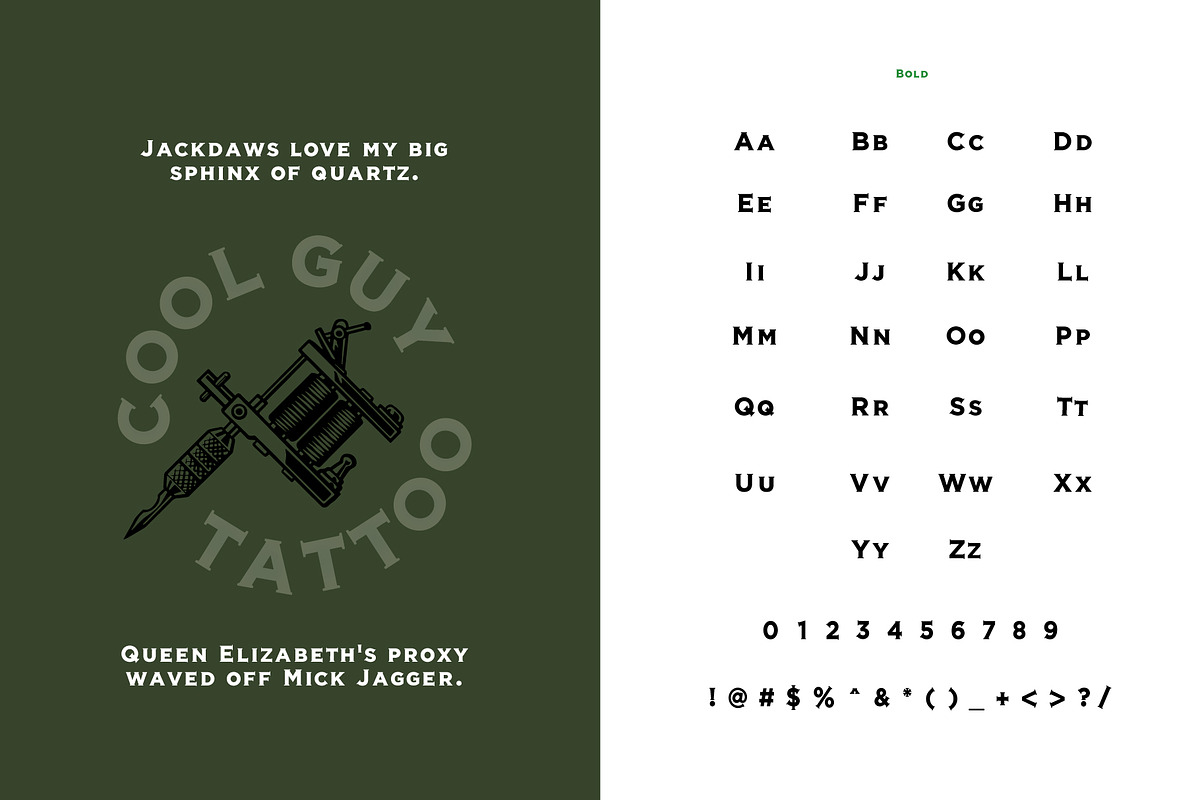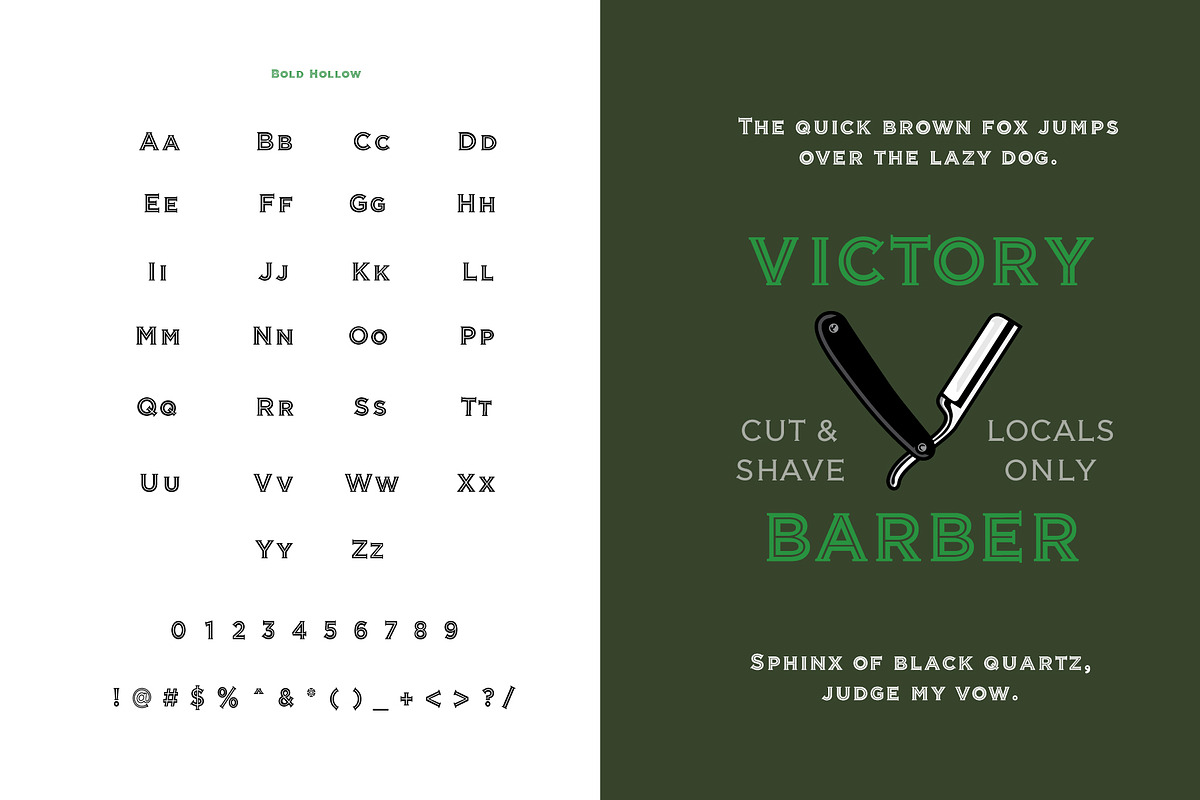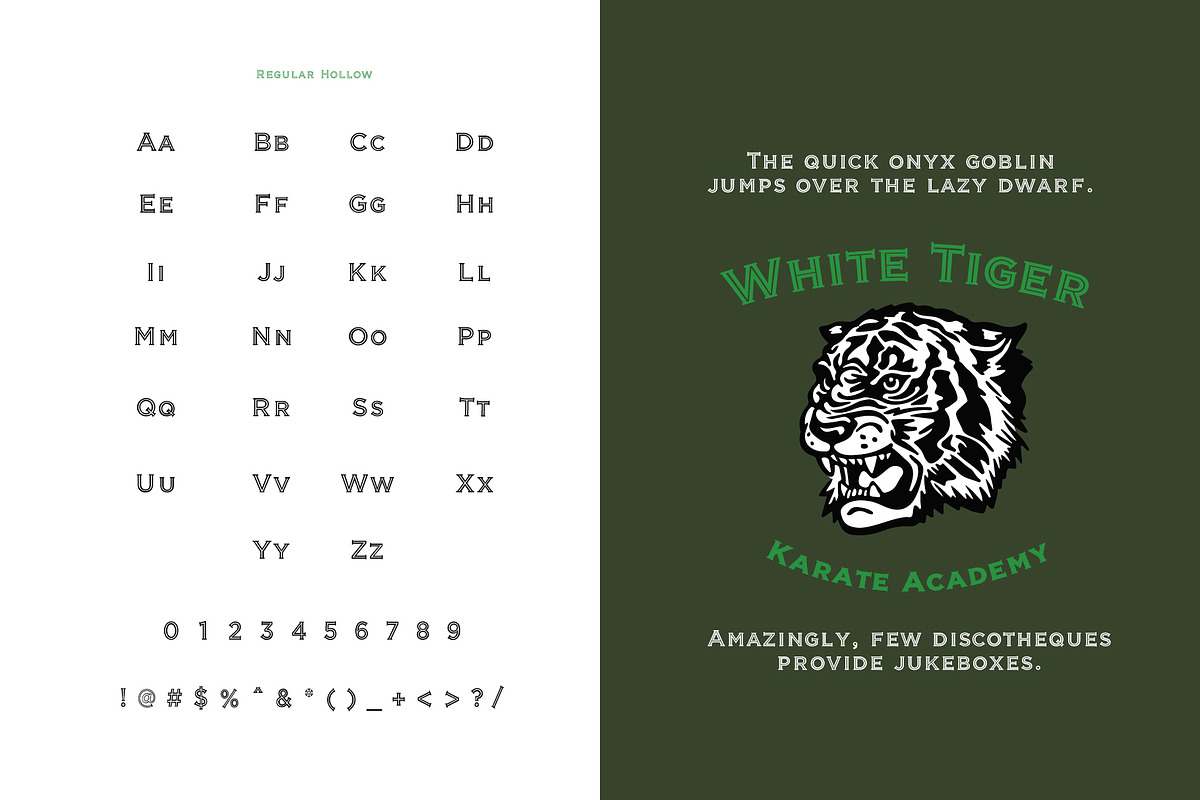
Veneer
Veneer is an all-caps typeface with a consistent stroke small caps lower case variation. It boasts a rounded wedge-serif in both full and hollow variations. Use together for varied layer color effects of on their own. Inspired by a classic plate printing look Veneer brings classic style and sophistication to any project.